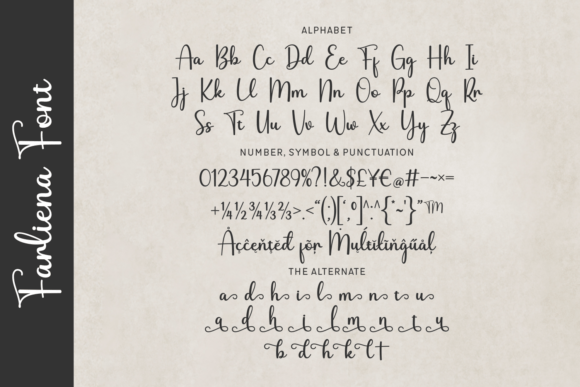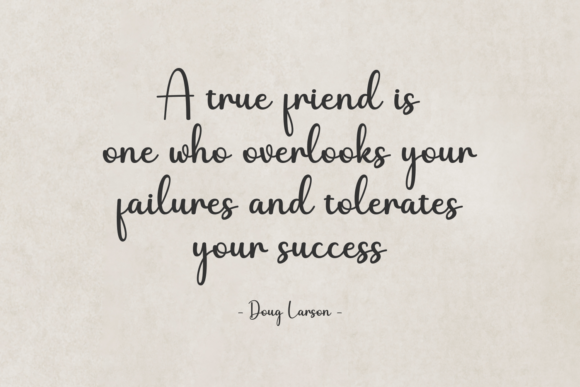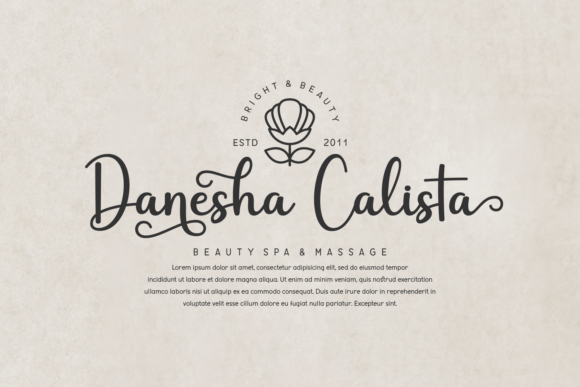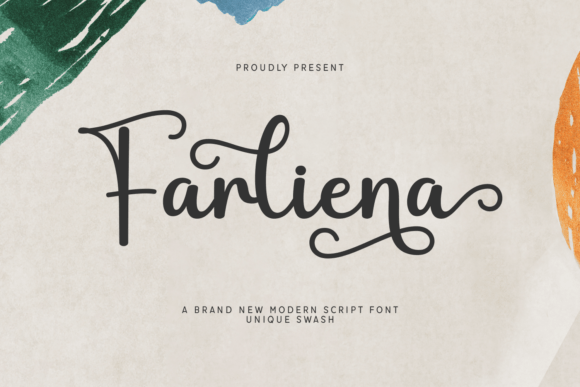
Introducing Farliena Font: Elevate Your Designs with Elegance and Sophistication
In the world of typography, few fonts manage to capture the essence of elegance and sophistication as effectively as Farliena. This modern script font is a masterpiece of design, boasting graceful swashes and a flowing, elegant design that instantly elevates any project it’s used in. Whether you’re a designer looking for the perfect font for a client’s branding, a crafty individual creating wedding invitations, or a social media enthusiast aiming to make your posts stand out, Farliena is the ideal choice.
The Timeless Charm of Farliena
Farliena’s timeless charm is one of its most striking features. Unlike trends that come and go, this font exudes a classic beauty that never goes out of style. Its sophisticated appearance makes it perfect for a wide range of applications, from high-end branding and product packaging to more personal projects like wedding invitations and greeting cards. The elegance of Farliena is versatile, capable of adapting to the tone and theme of any project while maintaining its luxurious feel.
What sets Farliena apart from many script fonts is its incredible versatility. While it shines in traditional applications like luxury branding and formal invitations, it also brings a touch of sophistication to more casual projects. Imagine using Farliena for:
- Branding: Give your brand a luxurious makeover with a font that communicates elegance and refinement.
- Wedding Invitations: Make your special day even more memorable with invitations that reflect the beauty and joy of the occasion.
- Greeting Cards: Whether it’s a birthday, anniversary, or holiday, Farliena adds a touch of class to any card.
- Product Packaging: Stand out on the shelves with packaging that exudes quality and sophistication.
- Social Media Designs: Elevate your social media posts and stories with a font that grabs attention and conveys a sense of style.
Design Features of Farliena
Farliena’s design is characterized by its graceful swashes and flowing lines, which contribute to its elegant appearance. The font includes:
- Swashes: Beautiful, sweeping swashes that add a dynamic touch to your text.
- Alternates: A range of alternate characters to help you customize your text and make it truly unique.
- Multilingual Support: Farliena supports multiple languages, making it a great choice for global brands and projects.
Why Choose Farliena?
With so many fonts available, why choose Farliena? The answer lies in its unique combination of elegance, versatility, and creativity. Farliena doesn’t just convey a message; it creates an experience. Its sophisticated design invites readers to engage with the content on a deeper level, making it perfect for projects where you want to leave a lasting impression.
Farliena is more than just a font; it’s a design statement. With its modern script style, graceful swashes, and elegant design, it brings a level of sophistication and creativity to any project. Whether you’re a professional designer or a DIY enthusiast, Farliena offers the perfect blend of style and versatility. So, if you’re looking to elevate your designs and make them stand out, look no further than Farliena Font.
Incorporate Farliena into your design toolkit and discover how this beautiful script font can transform your projects. With Farliena, you’ll not only be adding a font to your design; you’ll be adding a touch of elegance and sophistication that will make your work truly unforgettable.